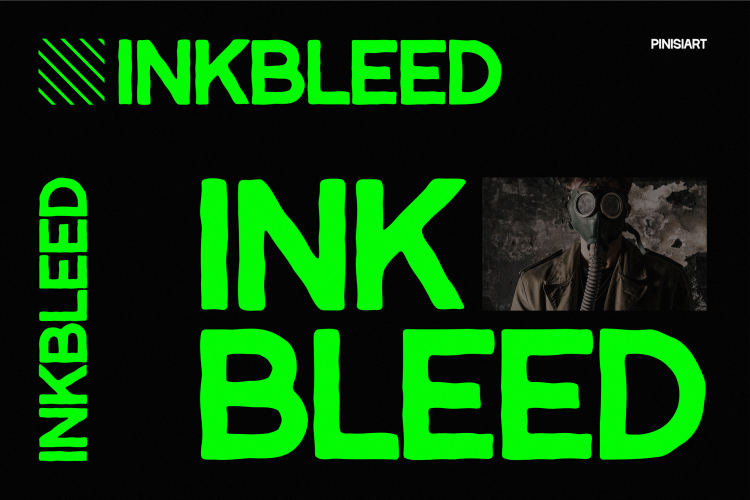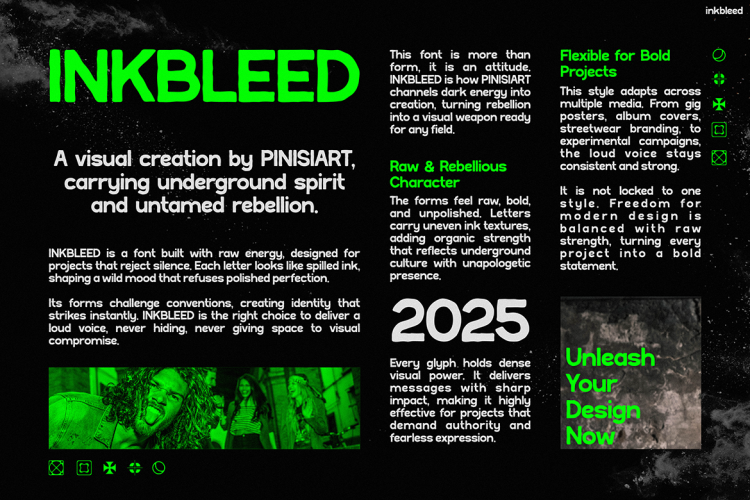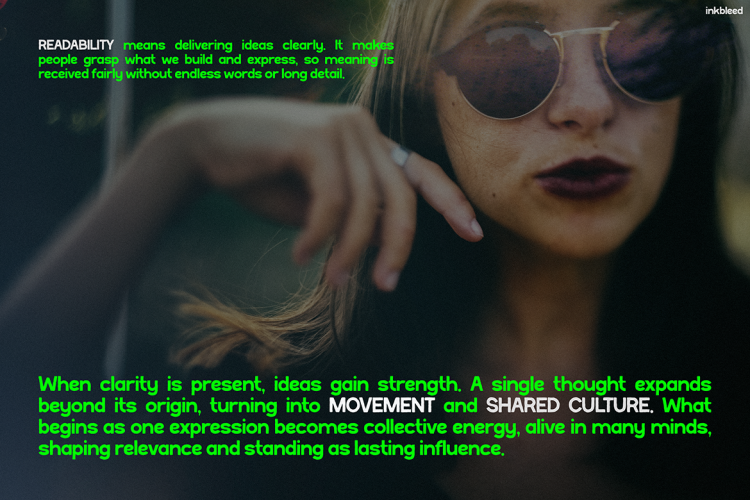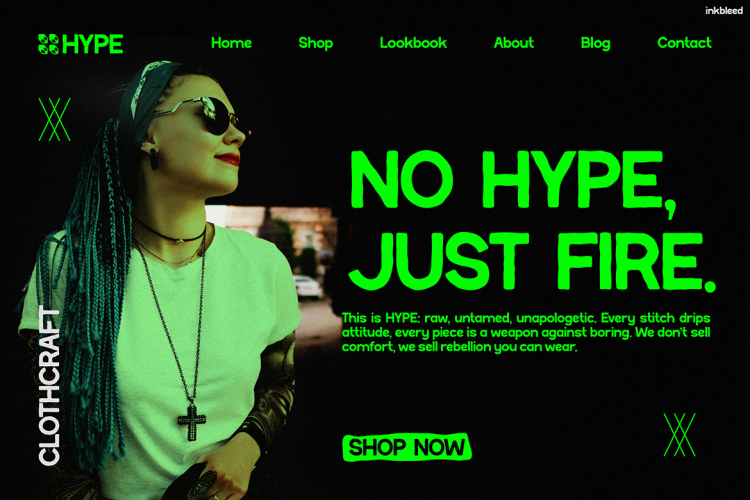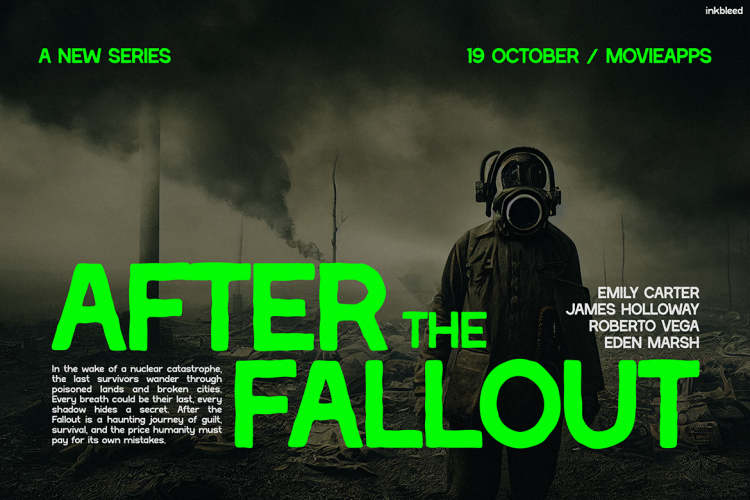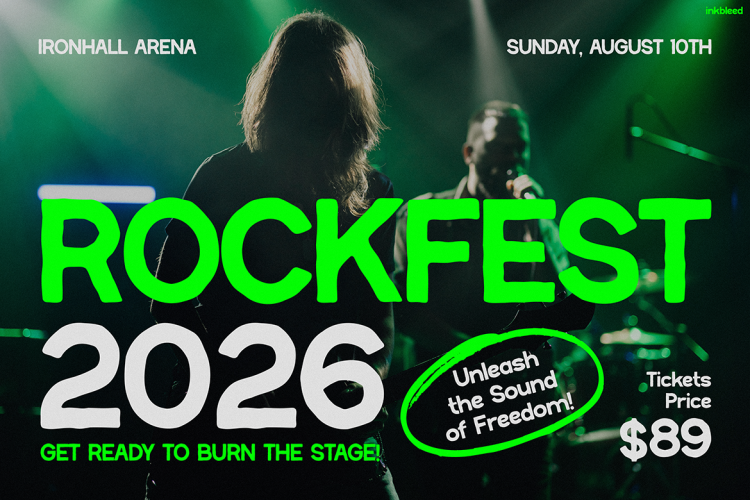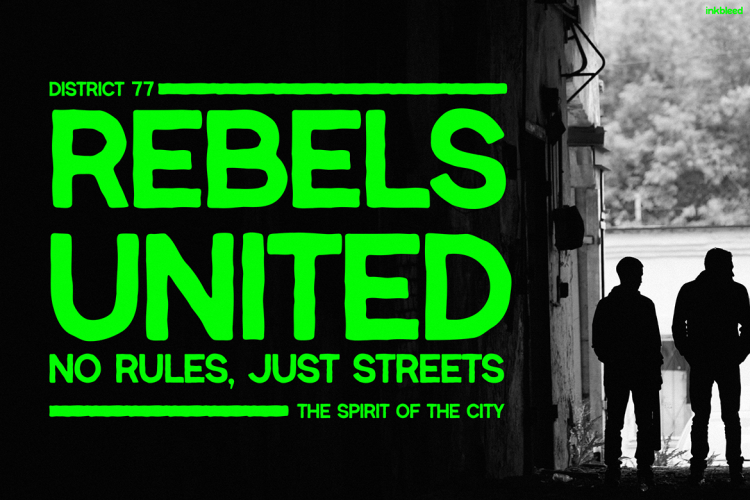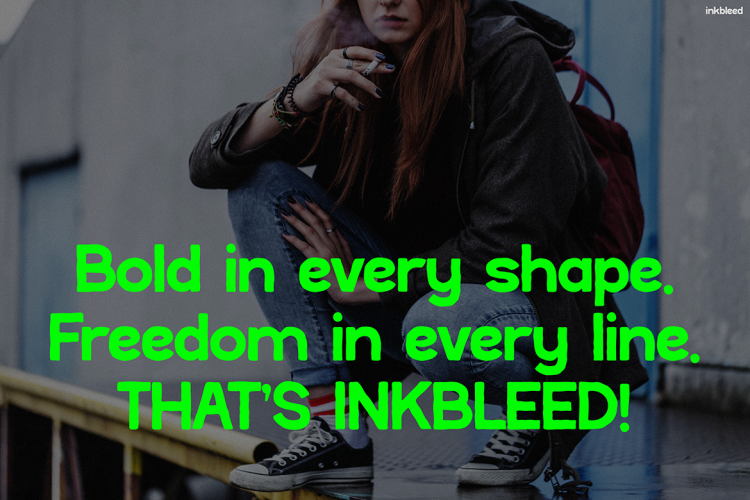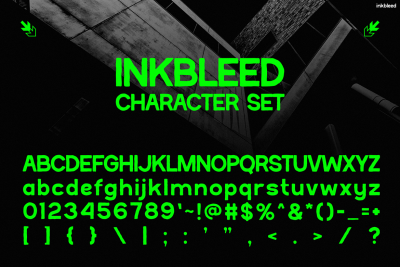
Instagram Font Inkbleed Why It Stands Out
Instagram Font Inkbleed is not just a fontโitโs an attitude. Born from the clash of street rebellion and futuristic vision, this typeface drips with confidence and raw energy. Moreover, its sharp edges, bold weight, and electric neon vibe make it impossible to ignore. Whether youโre creating edgy Instagram posts, gritty posters, or loud festival graphics, Inkbleed ensures your message breaks free from the ordinary and demands attention.
What makes it unique is its ability to merge street-inspired chaos with clean readability. As a result, your designs become visually powerful yet easy to read. In addition, every character feels like a visual punch, designed to make your words stand tall and fearless.
Who Itโs For
Instagram Font Inkbleed is for creators who donโt play by the rules. Therefore, itโs the ideal choice for streetwear brands, musicians, DJs, esports teams, and content creators who thrive on originality.
Designers will find it perfect for posters, covers, or bold digital ads.
Brands in fashion, tech, or entertainment can use it to capture youth-driven energy.
Creators on Instagram, TikTok, and YouTube will benefit from its fearless and modern look.
In addition, event organizers, rock festivals, or marketing campaigns can rely on its bold energy. Above all, Inkbleed doesnโt whisperโit roars.
Your Next Power Move
If your visuals feel too safe, then itโs time to shake things up. Instagram Font Inkbleed gives you the power to build designs that look alive, untamed, and unforgettable. On the other hand, sticking with ordinary fonts will only make your projects fade into the background. Instead, choose Inkbleed and transform your words into a visual revolution.
In conclusion, this font is more than typographyโitโs freedom in every stroke, attitude in every shape, and fire in every headline. Therefore, if youโre ready to stand out, let Inkbleed bleed into your next project.